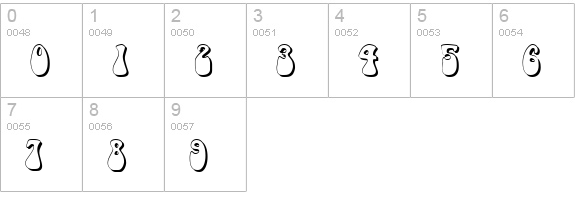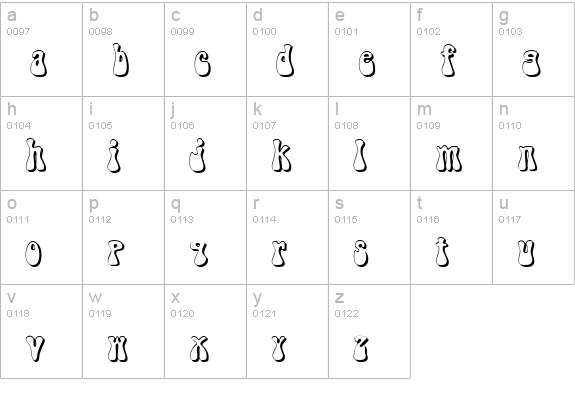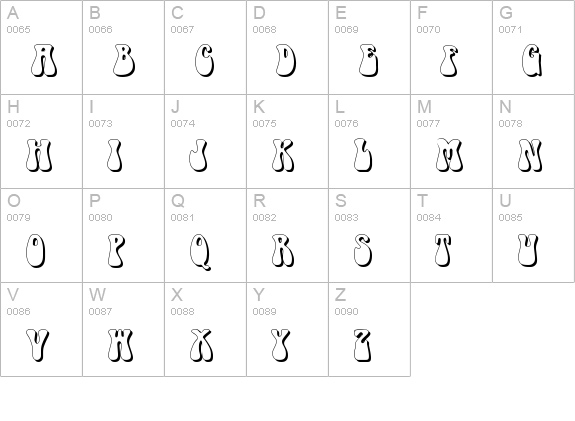
FZ JAZZY 14 3D Font Details
Introducing the stunning FZ JAZZY 14 3D font, a mesmerizing display typeface that is sure to make your designs pop! This unique font features a three-dimensional effect that adds depth and dimension to any project. With its bold and artistic design, FZ JAZZY 14 3D is perfect for headlines, posters, logos, and more. The best part? This incredible font is available for free download at FontsMarket.com! Whether you're a designer looking to add a touch of creativity to your work or a content creator in need of a standout font, FZ JAZZY 14 3D is the perfect choice. Don't miss out on this fantastic opportunity to elevate your designs with this eye-catching font. Download FZ JAZZY 14 3D today and let your creativity shine!